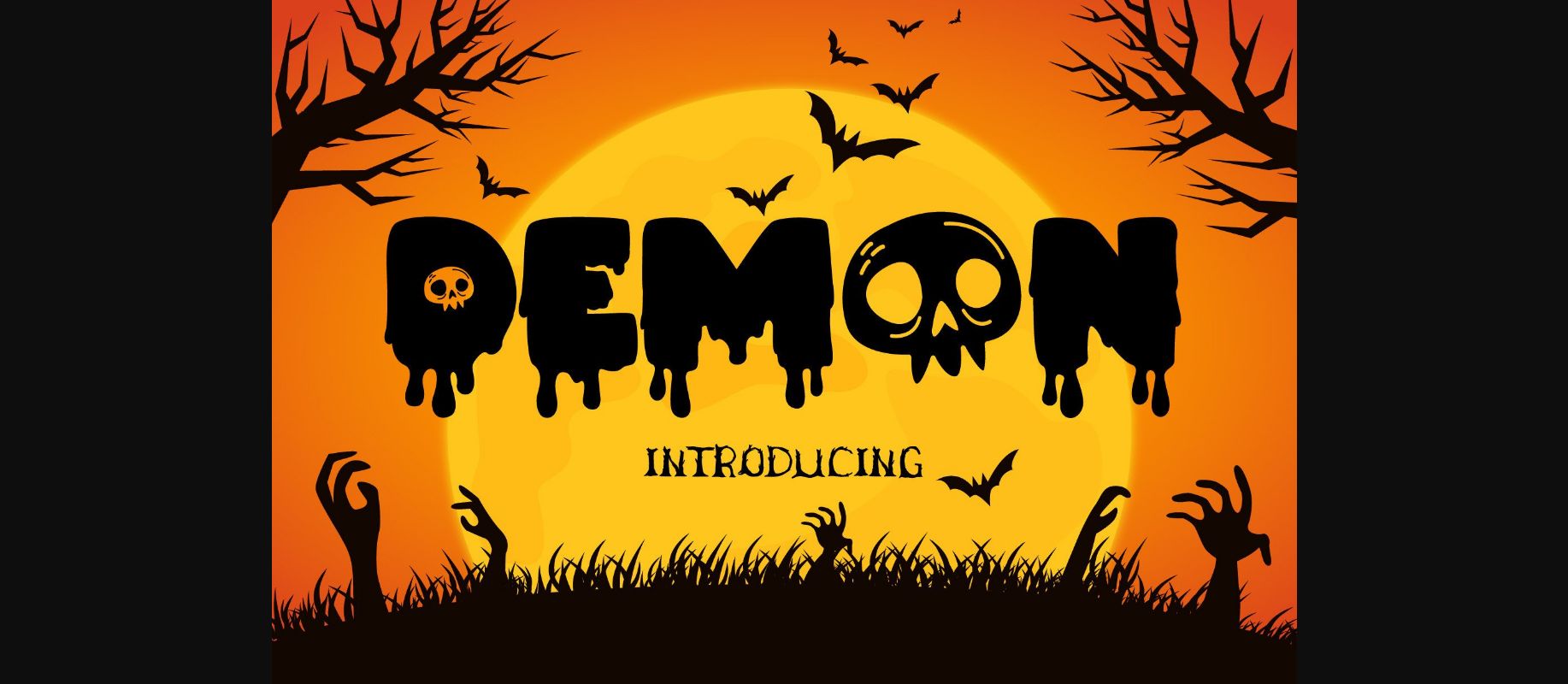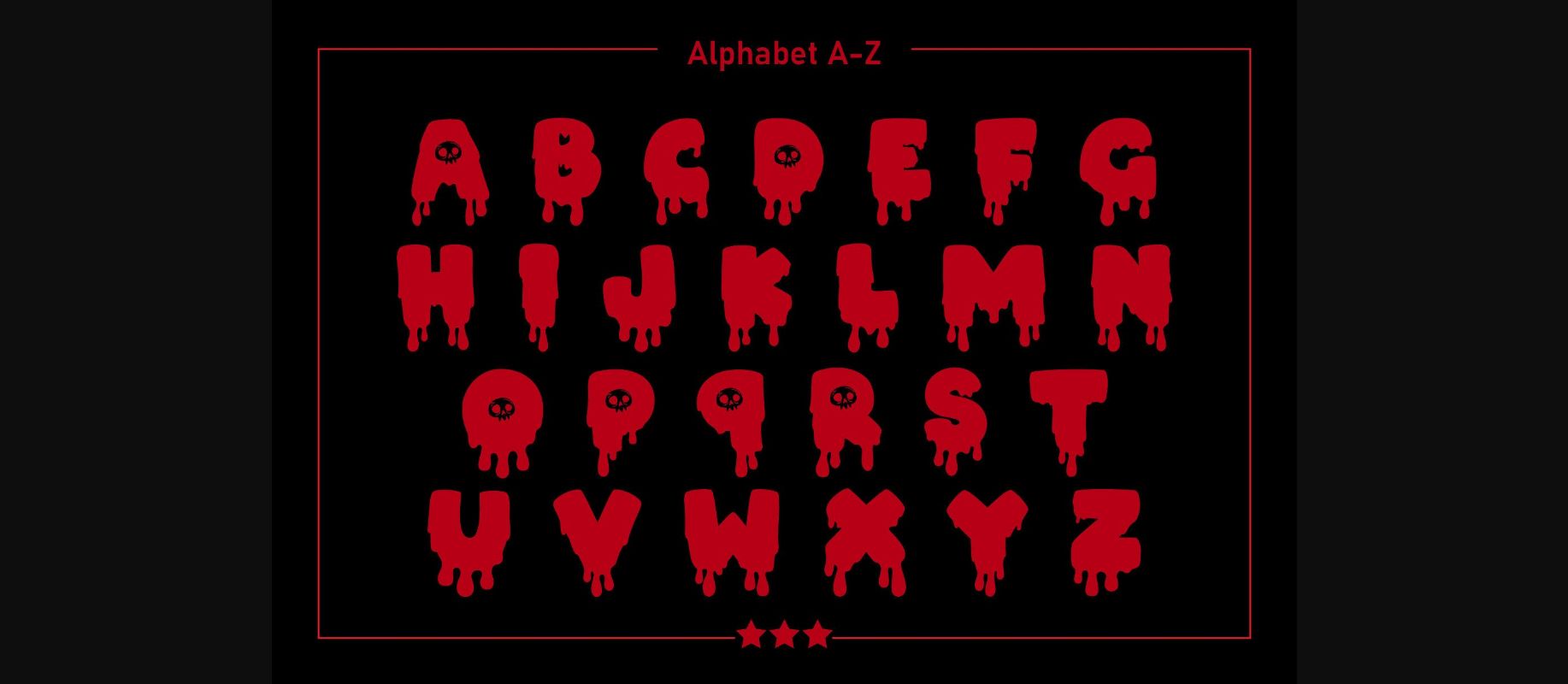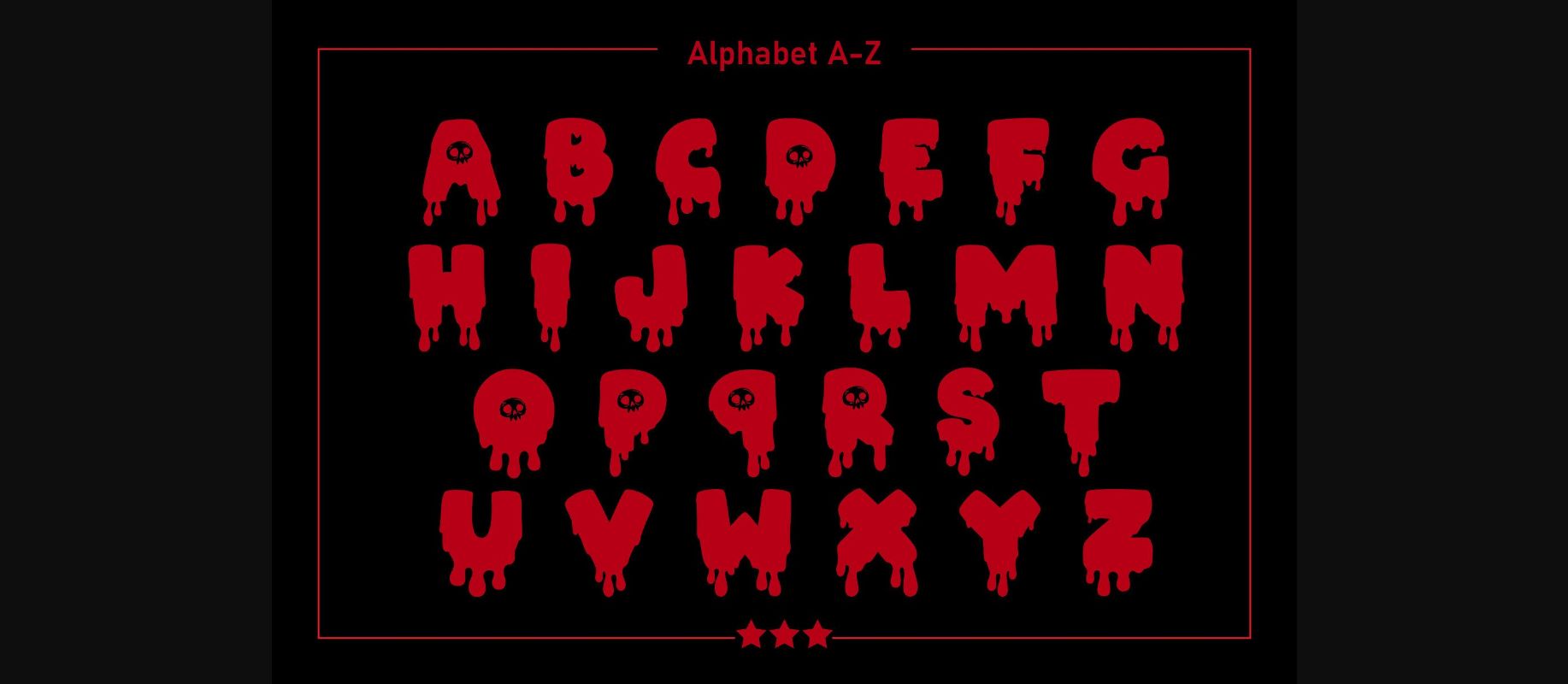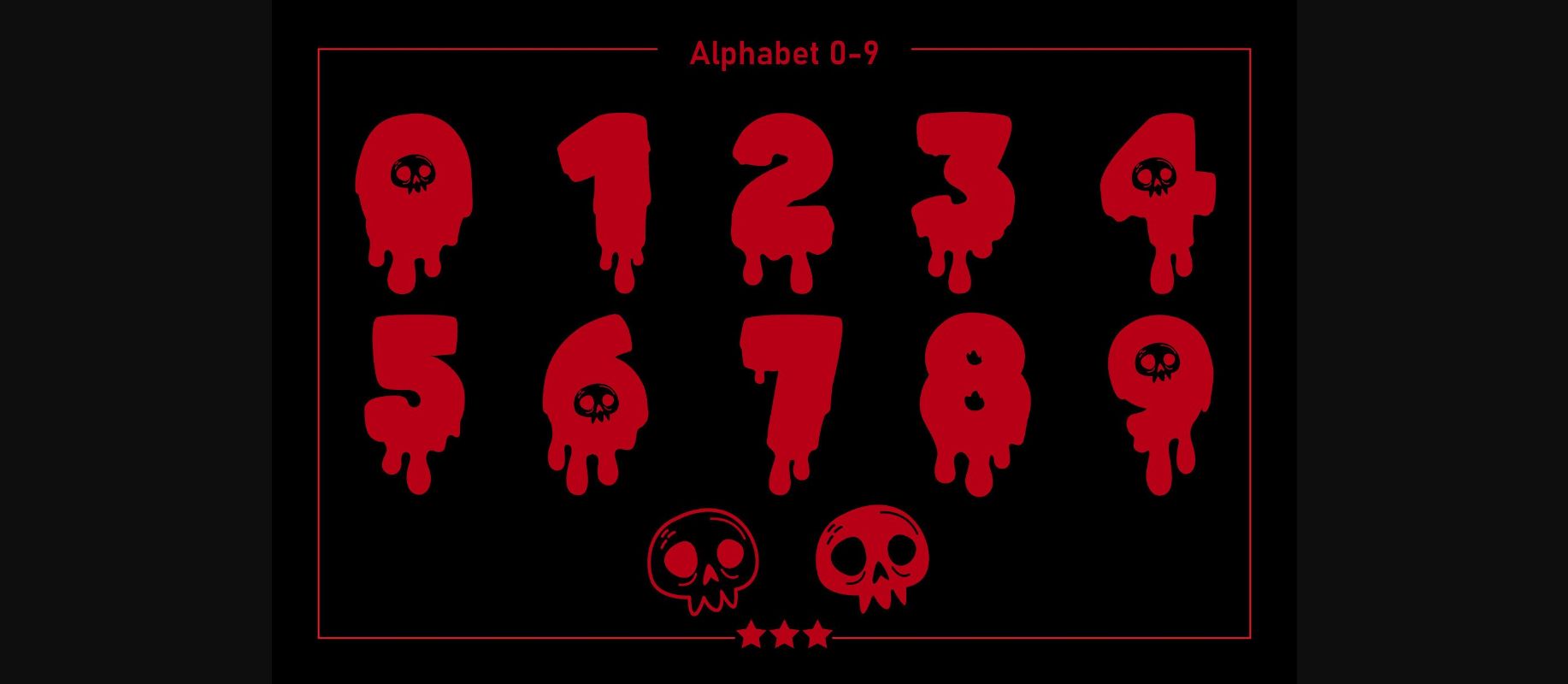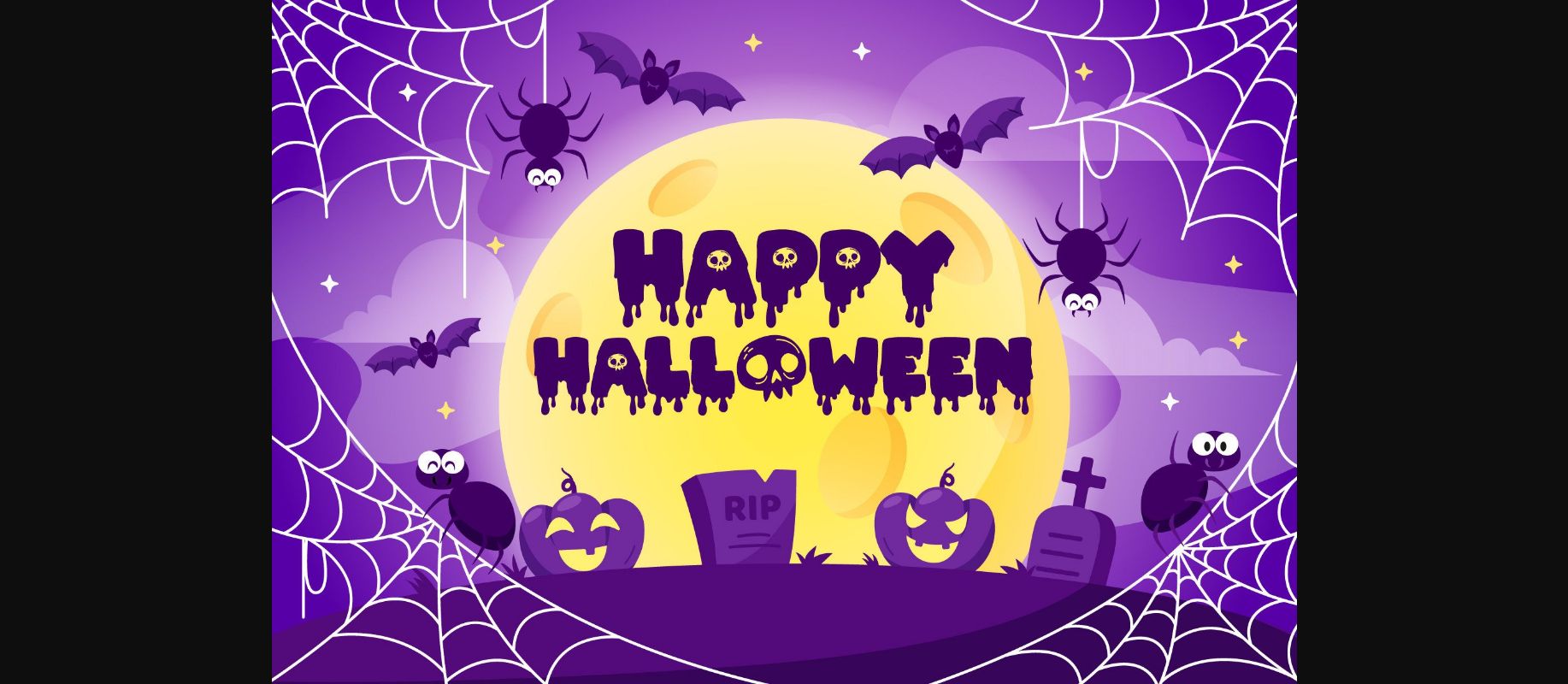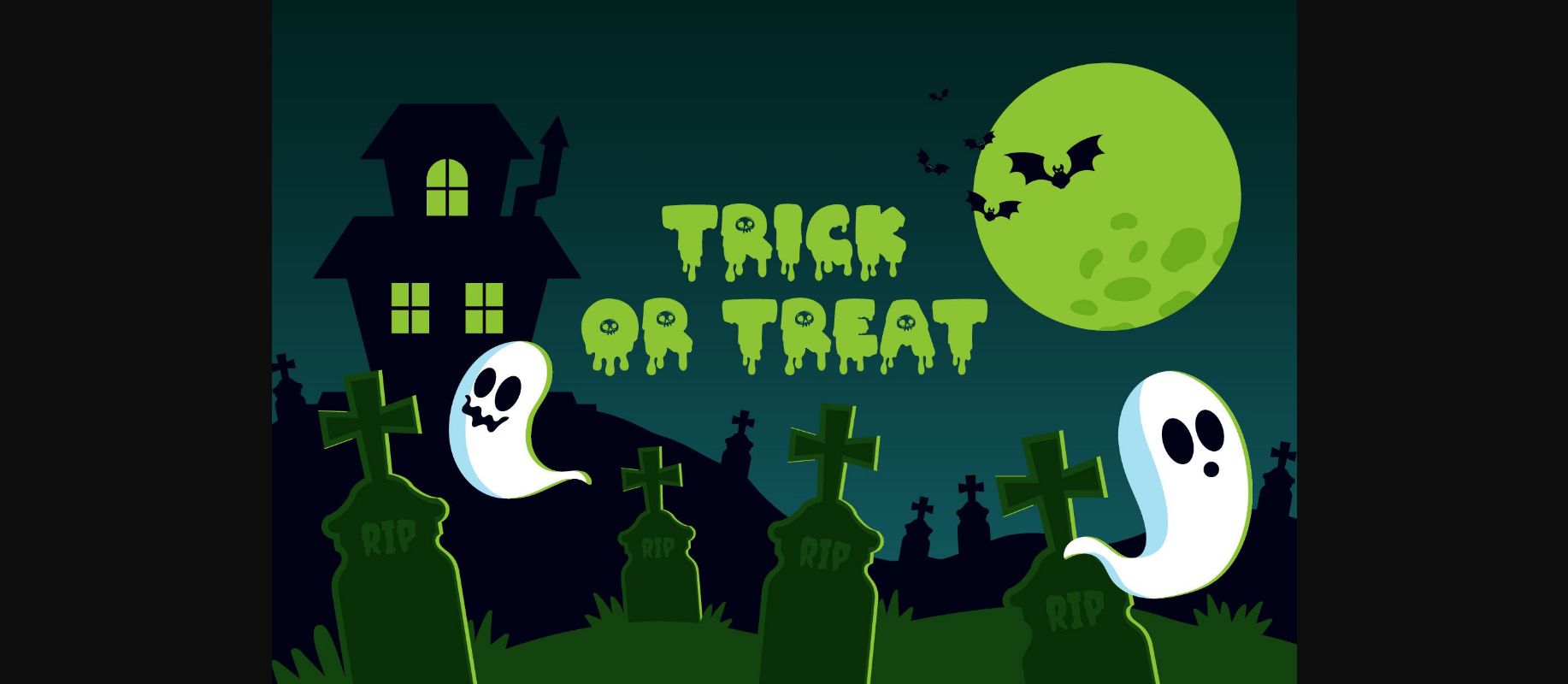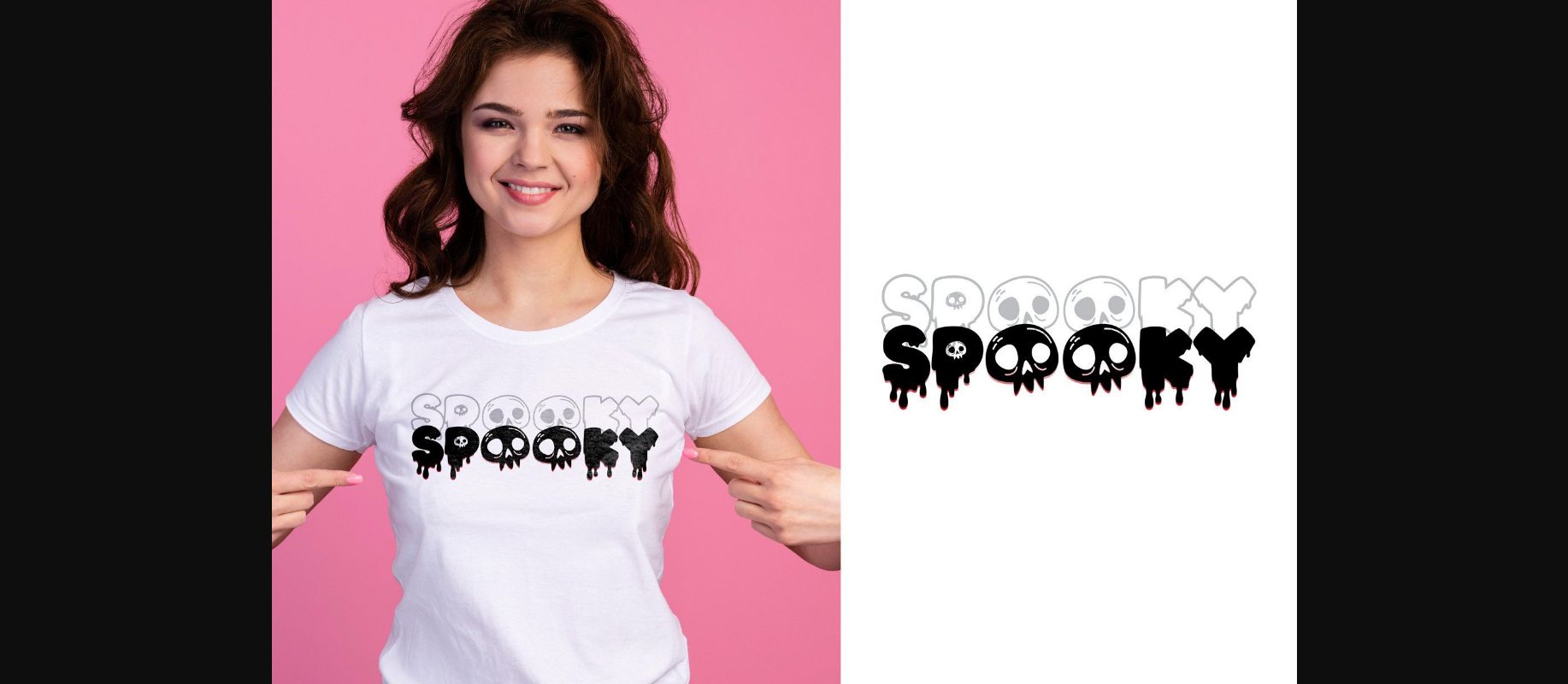
Demon Font
About Demon Font
Demon is a bold and fun decorative font suitable for a variety of designs in Halloween and children’s themes. It is perfect for logos, t-shirts, papers, print designs, website headers, photo frames, flyers, music covers, posters, image sliders, and much more.